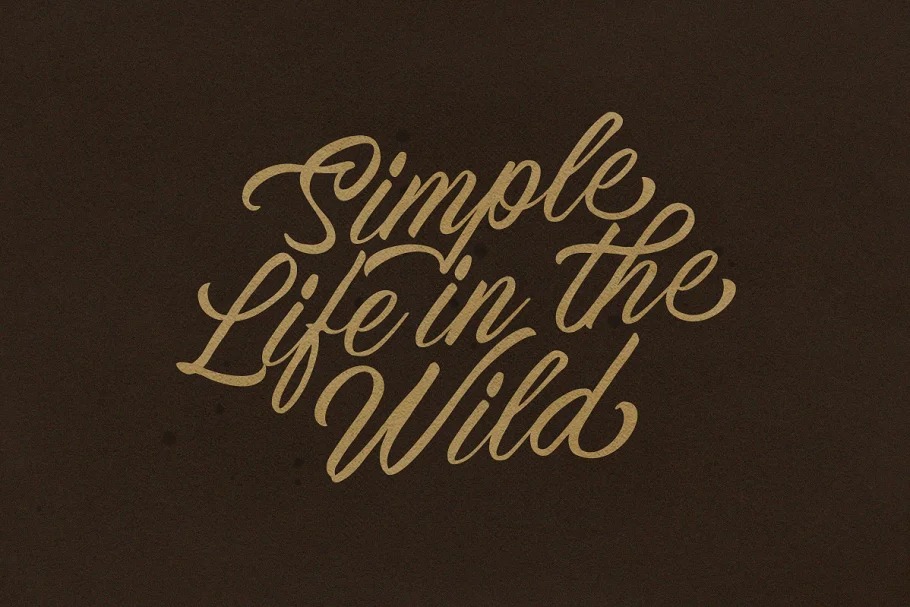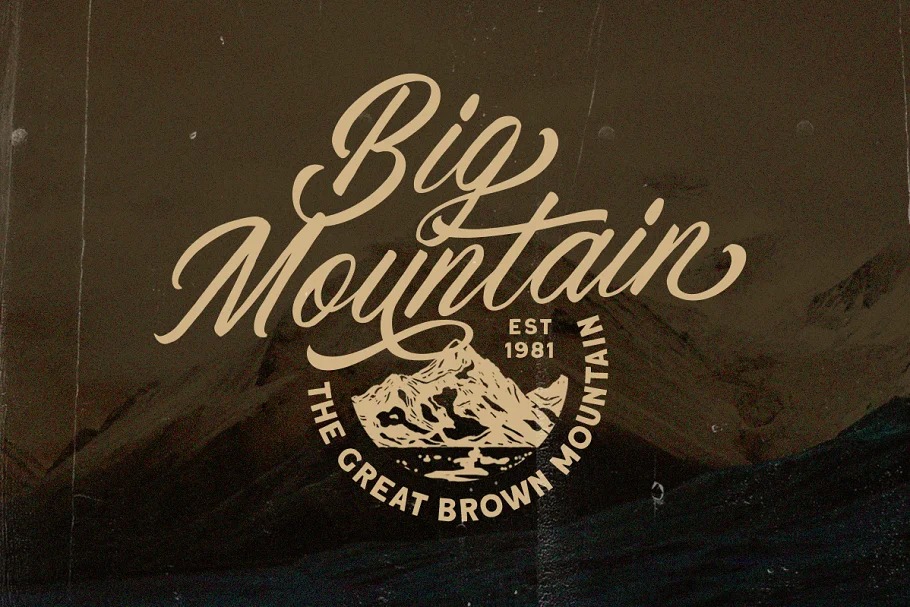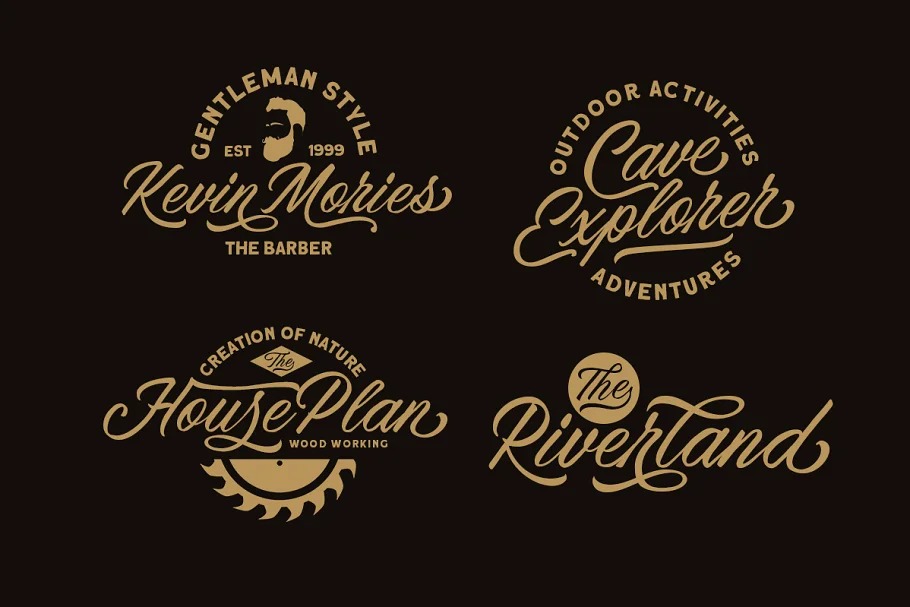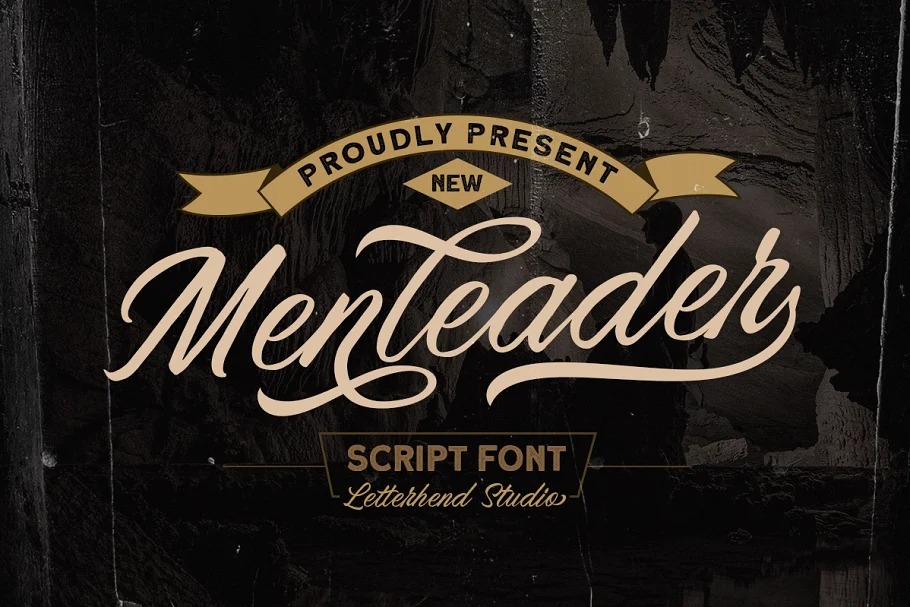
Menleader Script Font
This is a beautiful and elegant handwritten font package by Letterhend Studio. Delicate and well balanced, this font will brighten up each of your designs. This type of font perfectly made to be applied especially in logo, headline, signage and the other various formal forms such as invitations, labels, logos, magazines, books, greeting / wedding cards, packaging, fashion, make up, stationery, novels, labels or any type of advertising purpose.